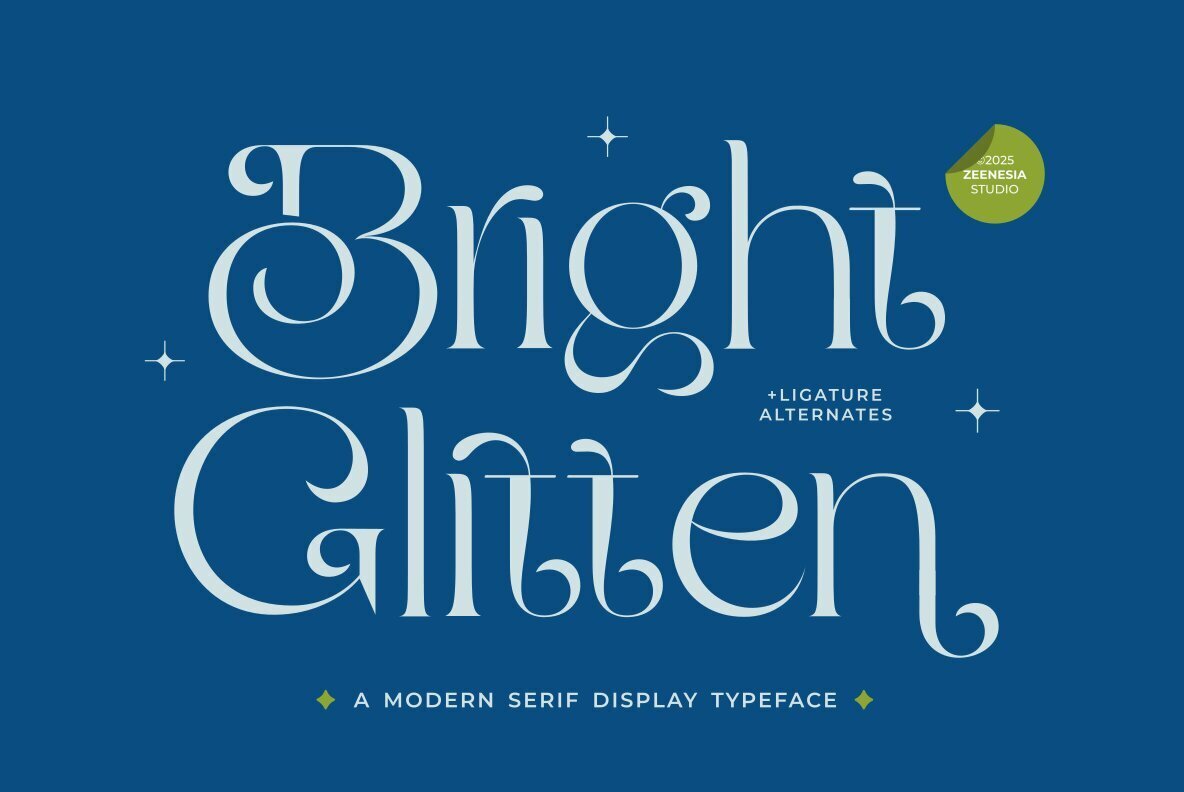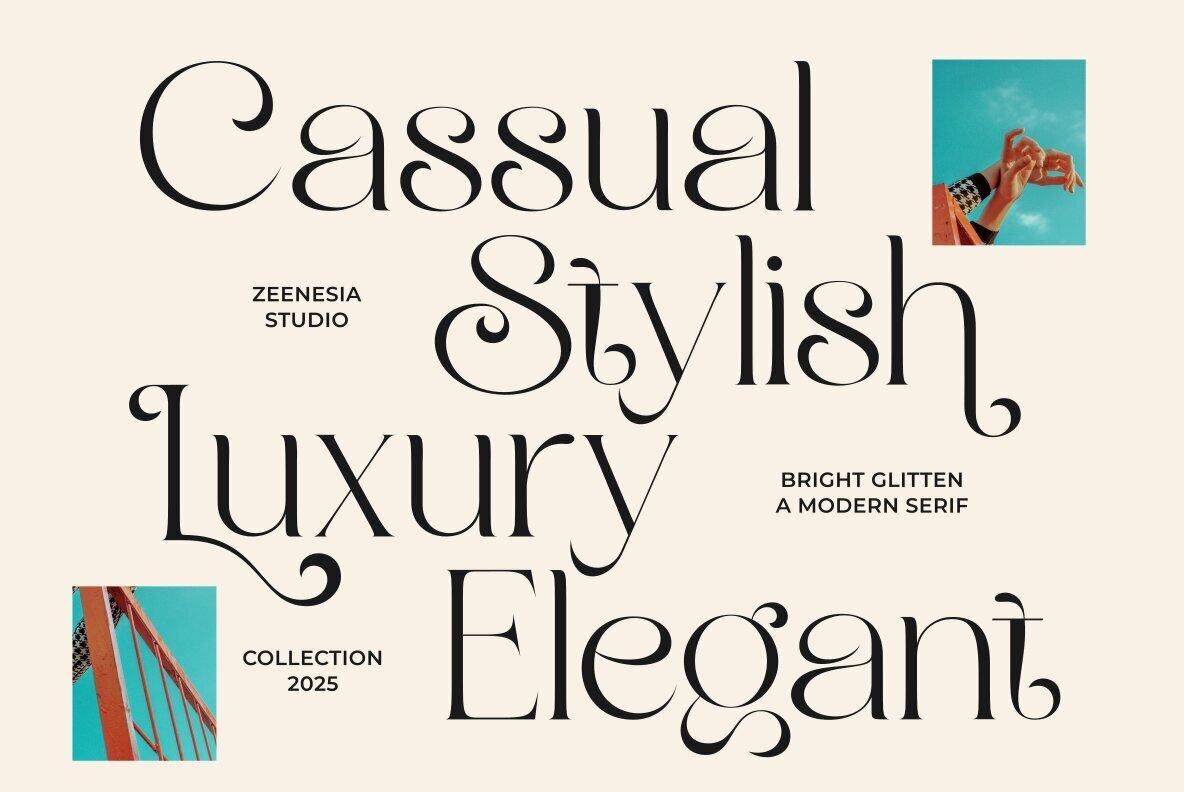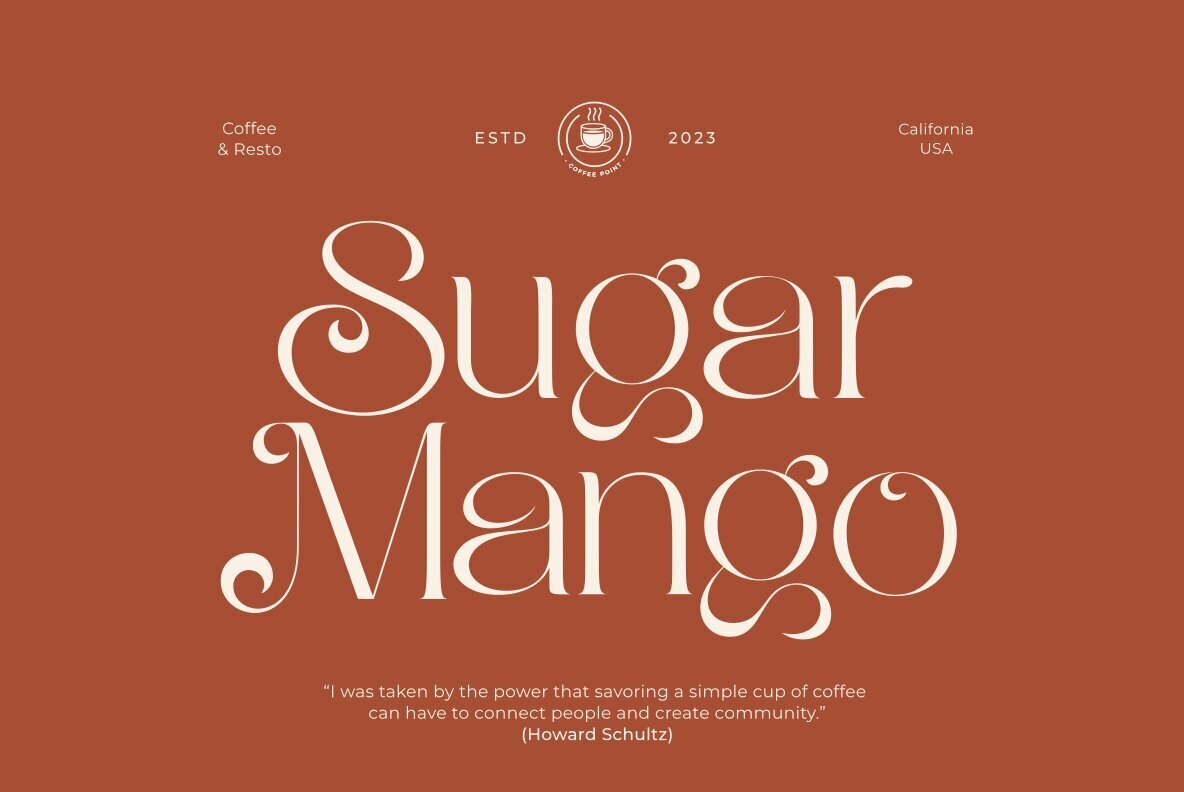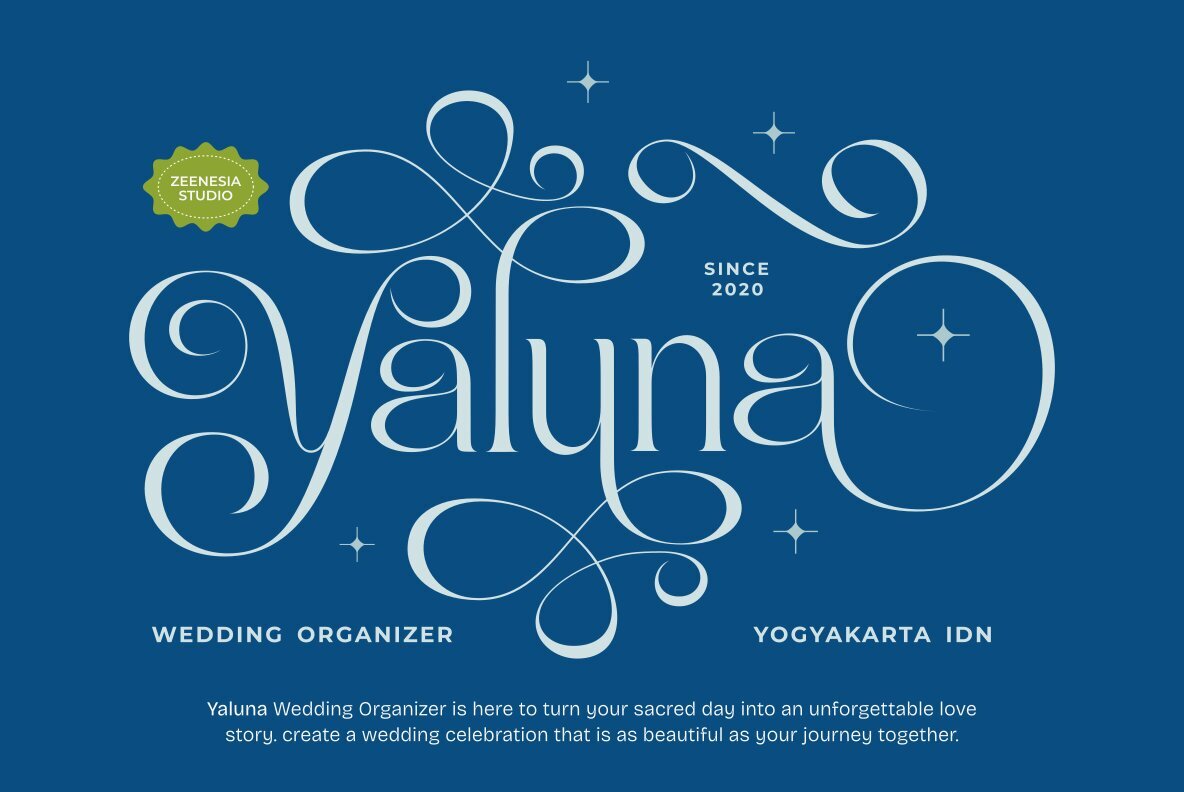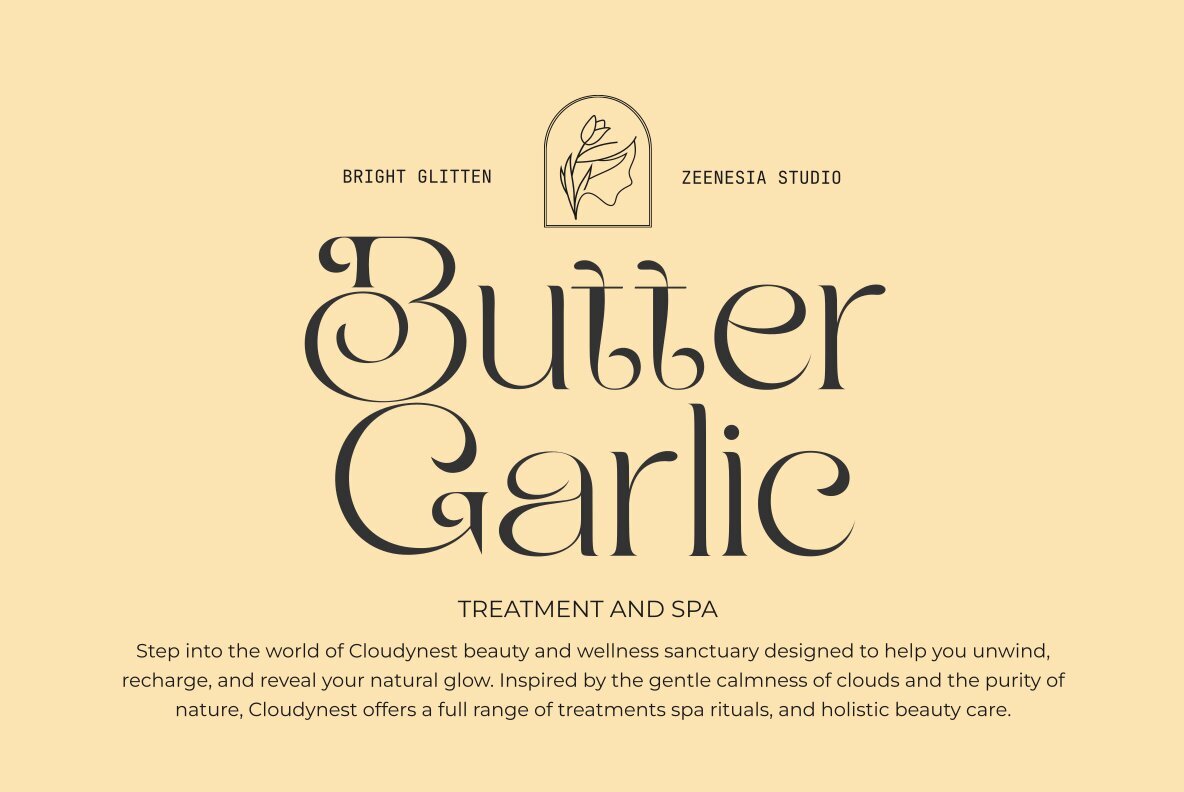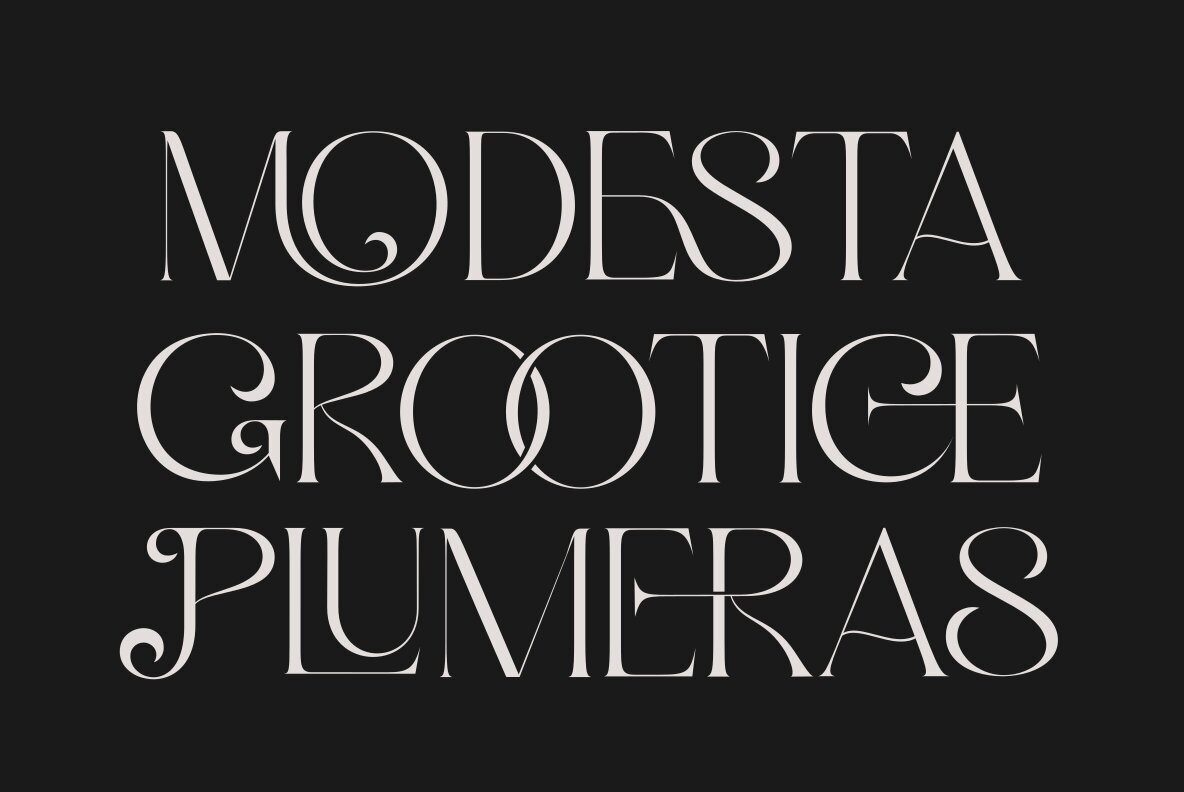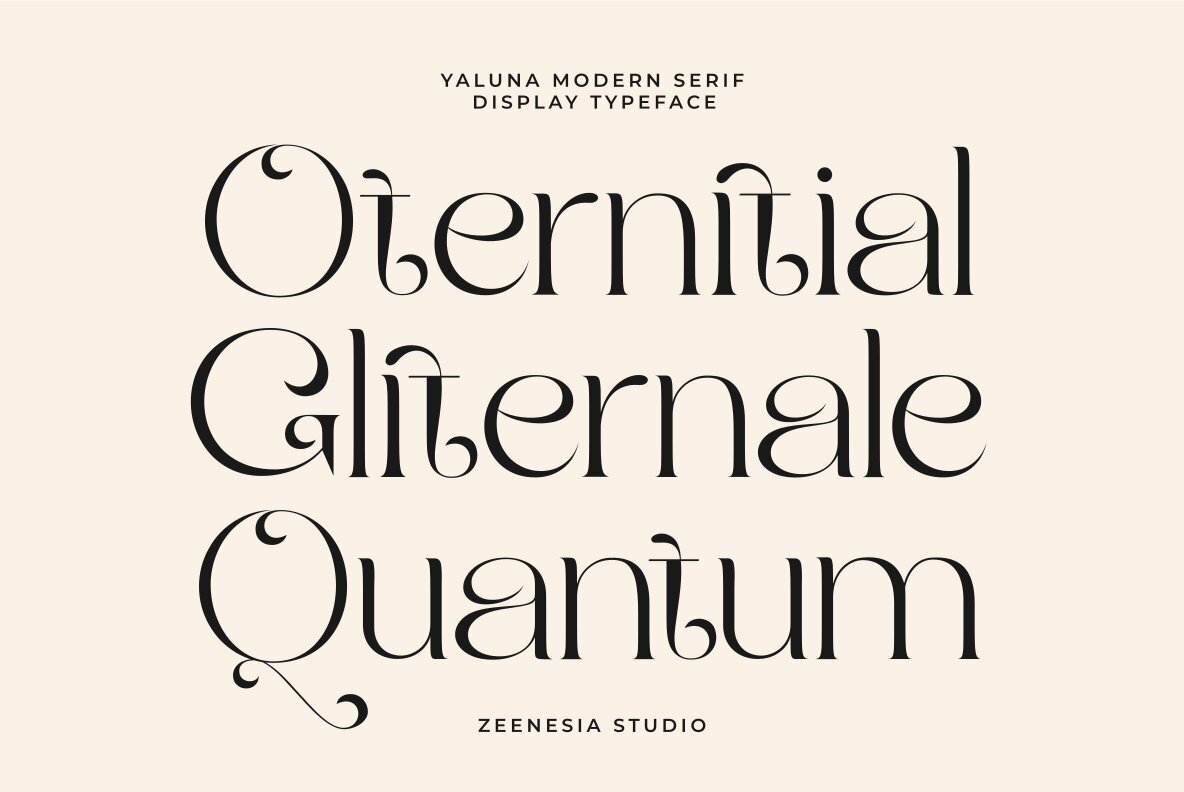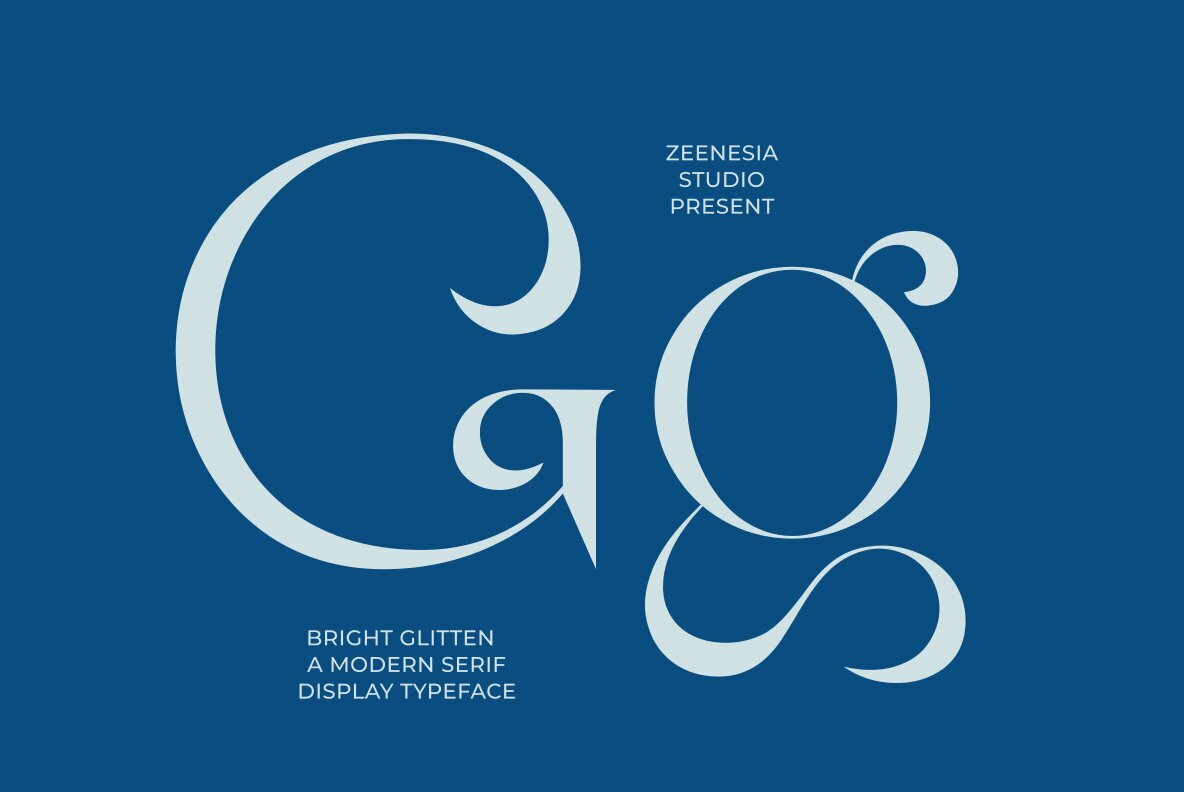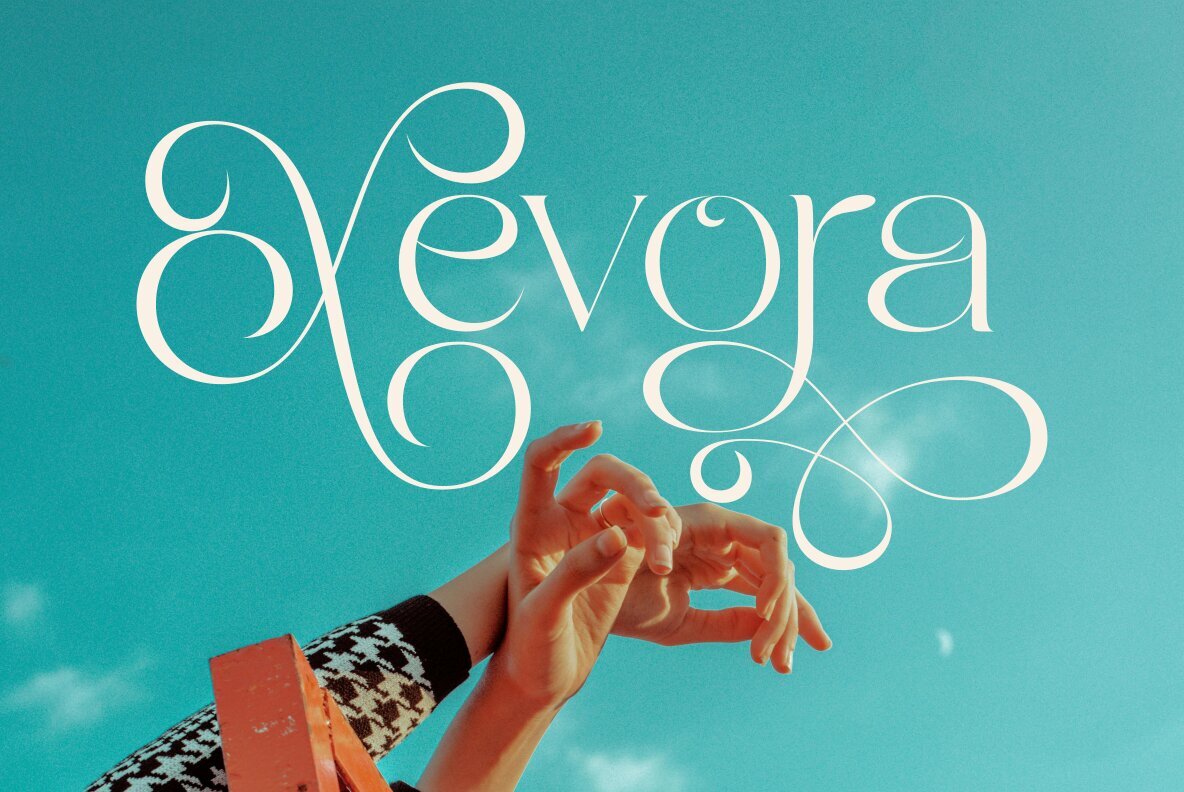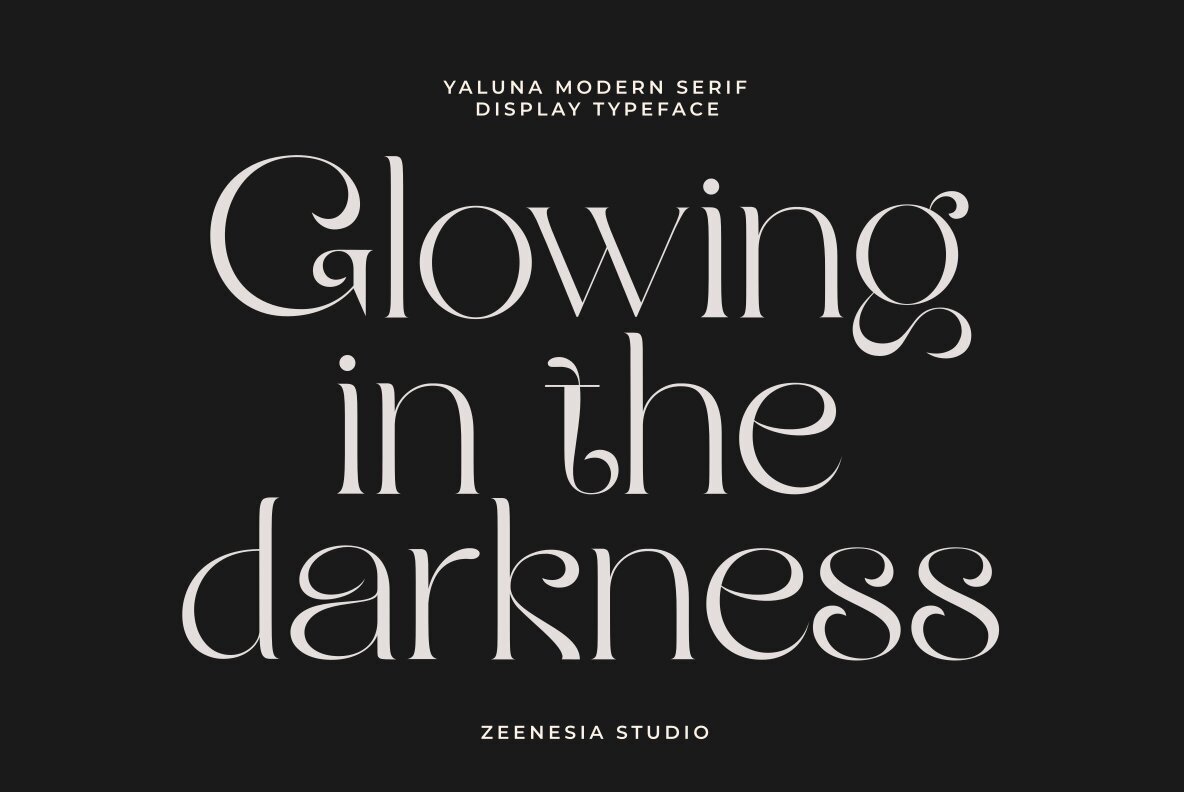
Bright Glitten Font
Bright Glitten Regular
Bright Glitten stands out with its elegant curves and sophisticated swashes, giving every letter a graceful character. This modern serif brings a unique balance of refinement and creative charm, making it ideal for luxury branding, editorial projects, and wedding invitations. The design incorporates stylish ligature alternates for added distinction, capturing attention in any setting. Bright Glitten brings a sense of glamour to text, making it well-suited for upscale packaging and design work seeking both poise and visual flair. Its detailed intricacies and versatile forms allow you to create layouts with a subtle touch of sparkle and an unmistakable presence. Every detail works to enhance the message while providing a chic foundation for standout design.Bright Glitten Modern Serif Display Typeface